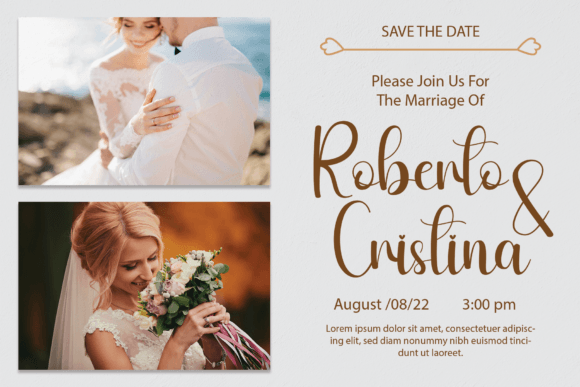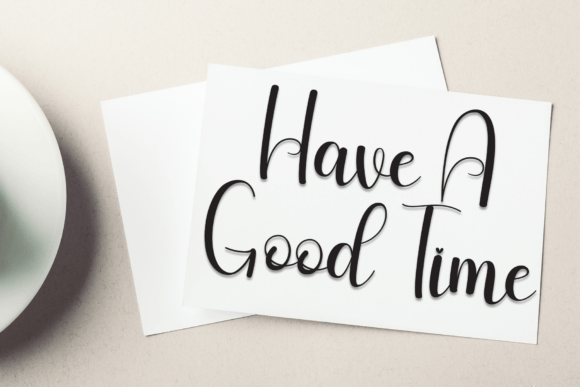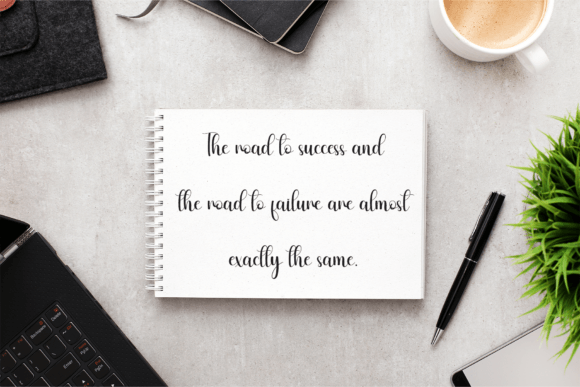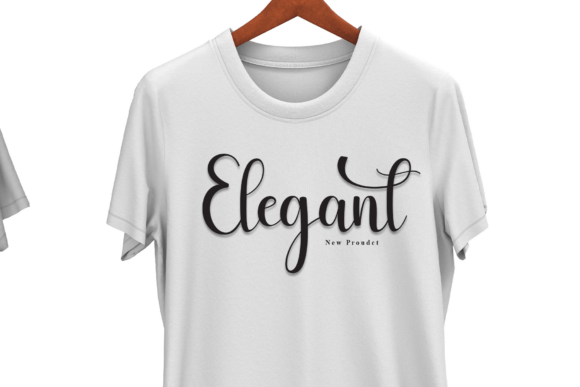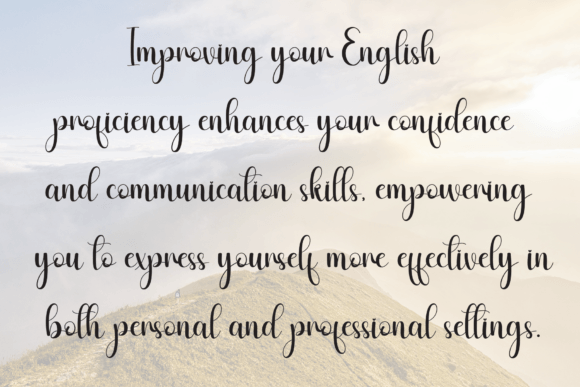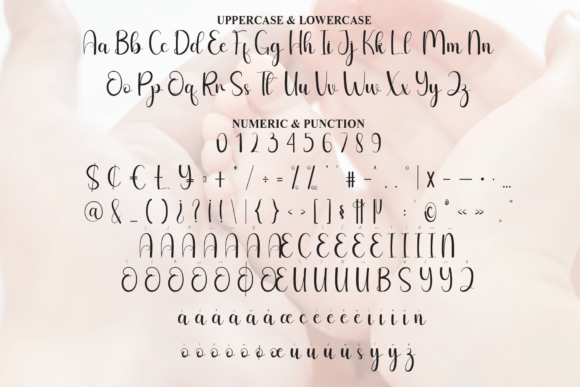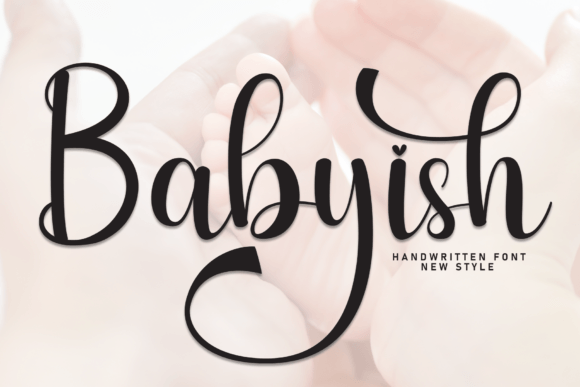
Babyish Font: Elevate Your Designs with Elegant Handwritten Script
In the world of typography, few fonts capture the essence of elegance and charm as beautifully as the Babyish font. This stunning handwritten script font is designed to bring a touch of sophistication and personality to any design project. Whether you’re working on branding, invitations, stationery, or any other creative endeavor, Babyish font is the perfect choice for those seeking a refined and timeless look.
The Characteristics of Babyish Font
Babyish font is distinguished by its fluid, graceful strokes that dance across the page with a natural ease. The smooth curves and flowing lines of this font create a sense of movement and harmony, making it a joy to behold. The font’s design is carefully crafted to exude a sense of elegance, making it an excellent choice for designers and crafters who want to add a touch of sophistication to their work.
Perfect for Branding, Invitations, and Stationery
Babyish font is incredibly versatile, making it suitable for a wide range of design applications. For branding, it can add a personal and sophisticated touch to logos, business cards, and letterheads. When it comes to invitations, Babyish font can create a beautiful and elegant first impression, perfect for weddings, baby showers, and other special occasions. In stationery, it can add a touch of refinement to notebooks, journals, and greeting cards.
Timeless and Refined Look
One of the standout features of Babyish font is its ability to create a timeless, refined look for any design. The font’s smooth curves and natural flow ensure that it never goes out of style, making it an excellent investment for designers and crafters who want to create beautiful and enduring designs. Whether you’re working on a modern or traditional project, Babyish font is sure to impress.
Why Designers and Crafters Love Babyish Font
Designers and crafters love Babyish font for many reasons. Firstly, its elegant and sophisticated design makes it perfect for creating beautiful and eye-catching designs. Secondly, its versatility ensures that it can be used across a wide range of design applications. Finally, the font’s timeless and refined look makes it an excellent choice for those seeking to create designs that will stand the test of time.
Tips for Using Babyish Font Effectively
To get the most out of Babyish font, here are a few tips to keep in mind:
- Use it as a headline font to add a touch of elegance and sophistication to your design.
- Pair it with a simple sans-serif font for body text to create a beautiful contrast.
- Don’t be afraid to get creative and try out different design elements, such as flourishes and swashes.
In conclusion, Babyish font is a stunning handwritten script font that is sure to elevate your designs to new heights. With its fluid, graceful strokes, smooth curves, and natural flow, it’s the perfect choice for designers and crafters seeking to add a touch of elegance and sophistication to their work. Whether you’re working on branding, invitations, stationery, or any other design project, Babyish font is sure to impress.